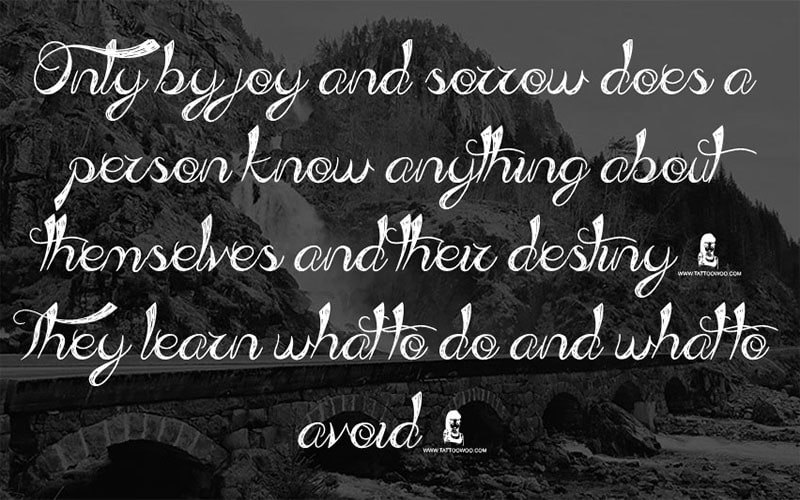
Admiration Pains Font is a remarkable typeface that combines elegance with versatility, was created by a talented designer JSH creates with a keen eye for detail and a deep appreciation for sophisticated typography.
The designer aimed to craft a font that could be used in various contexts, from formal to casual, while maintaining a high level of elegance and readability.
It is primarily a single style typeface, characterized by its clean lines, refined curves, and balanced proportions. It is designed to convey a sense of sophistication and grace, making it suitable for both headlines and body text.
This features a single, elegant style that exudes a sense of refinement. Its design incorporates subtle flourishes and delicate serifs, giving it a unique and distinguished appearance.
Admiration Pains Font
It is available in a standard weight that provides a robust yet elegant appearance. The design features moderate stroke contrast, enhancing readability while maintaining a stylish look.